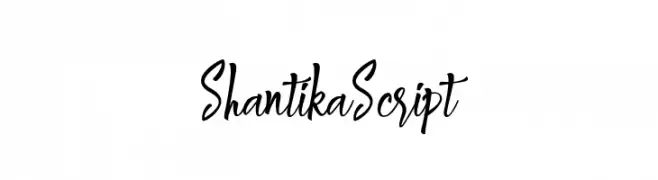
A lively and dynamic script font with fluid, cursive strokes.
A playful, handwritten script font with dynamic and fluid characters.
A bold, hand-painted style font with an expressive and artistic appearance.
A flowing, cursive font with a seamless, elegant handwriting style.
An elegant and flowing script font with bold uppercase and delicate lowercase letters.
A graceful script font with fluid, cursive strokes and elegant design.
A graceful script font with elegant, flowing strokes and balanced weight.
An elegant script font with flowing, interconnected letters and a calligraphic style.
An elegant, flowing script font with intricate loops and swashes.